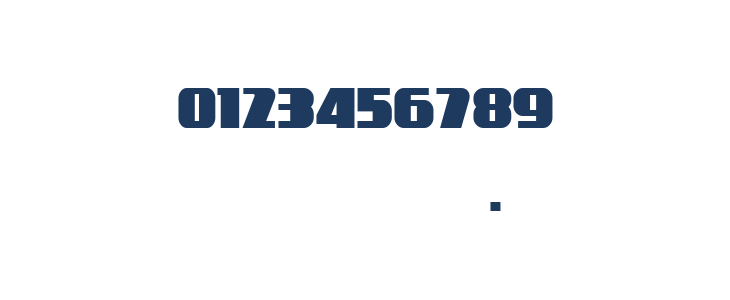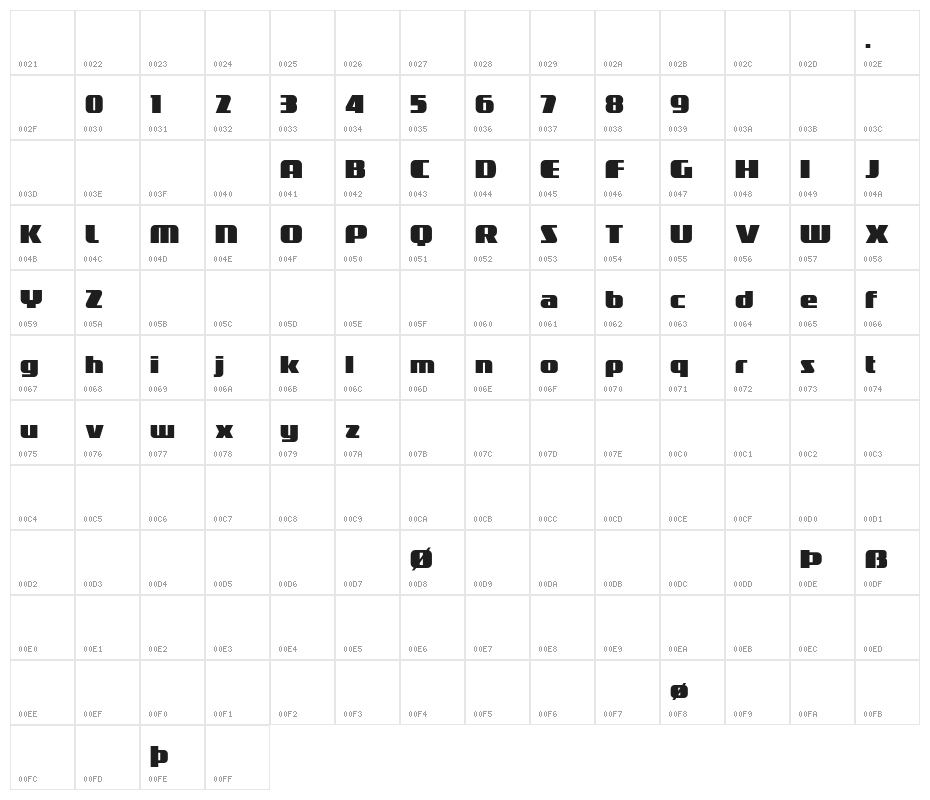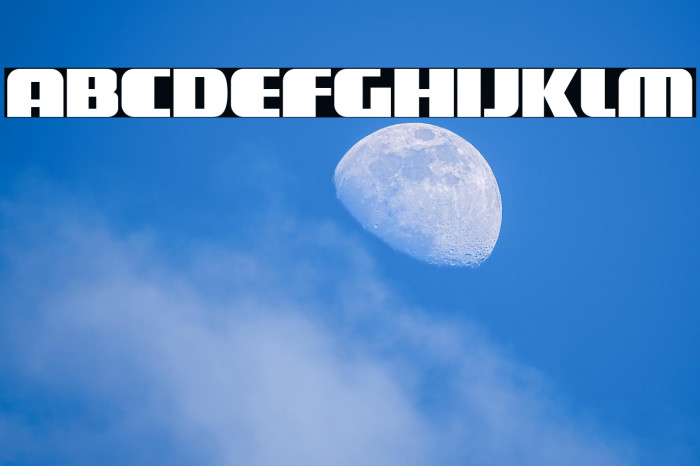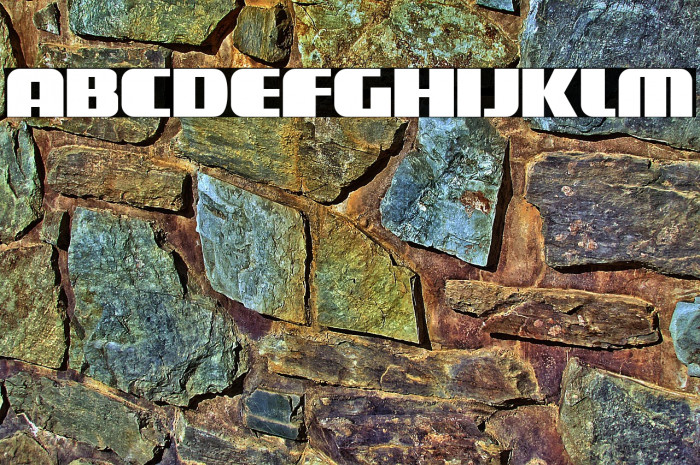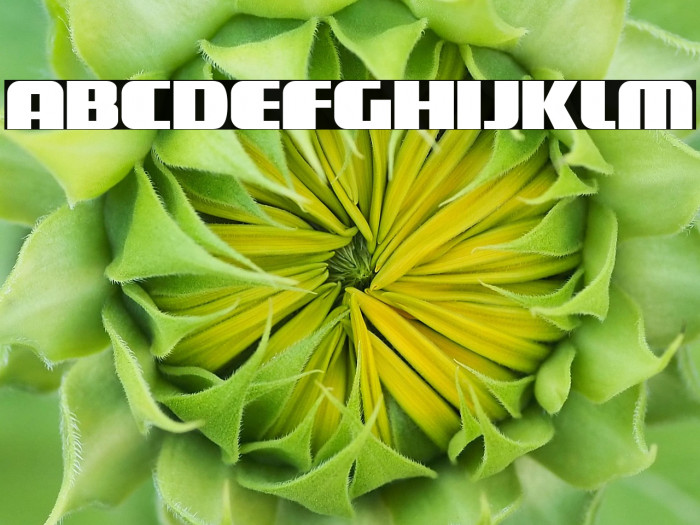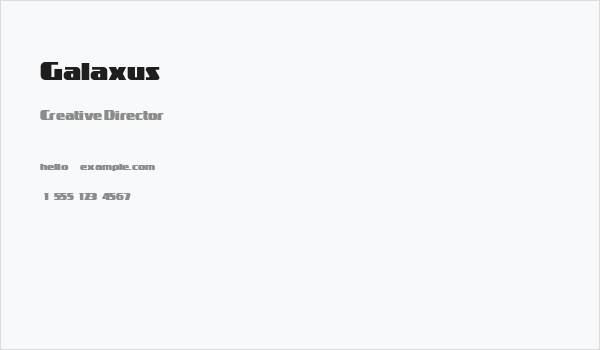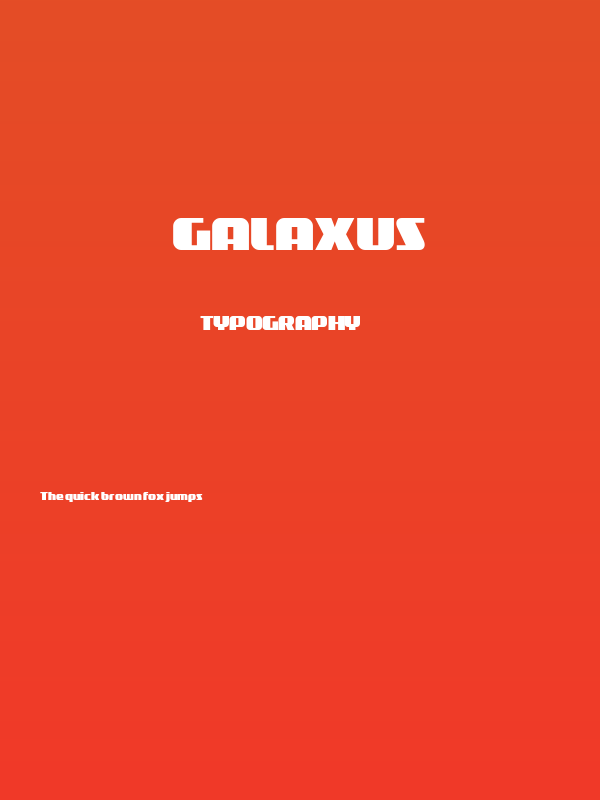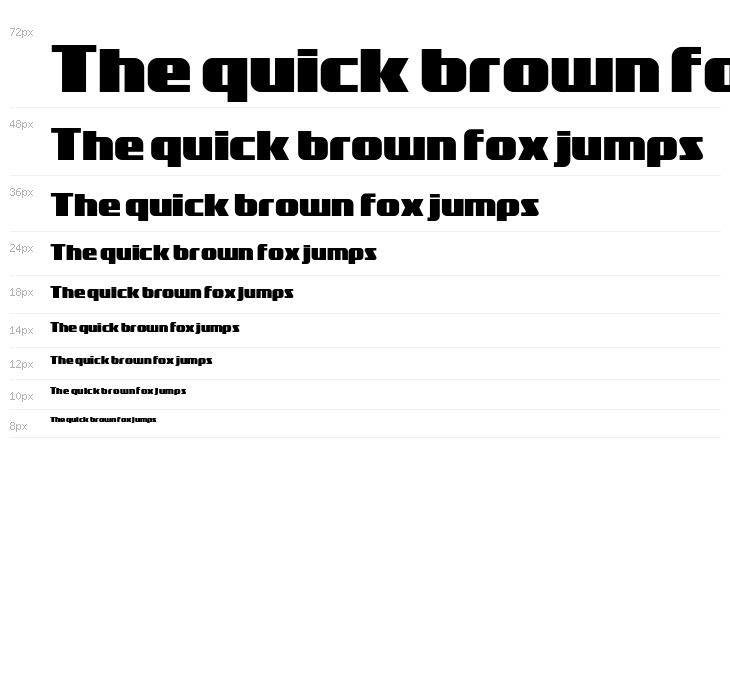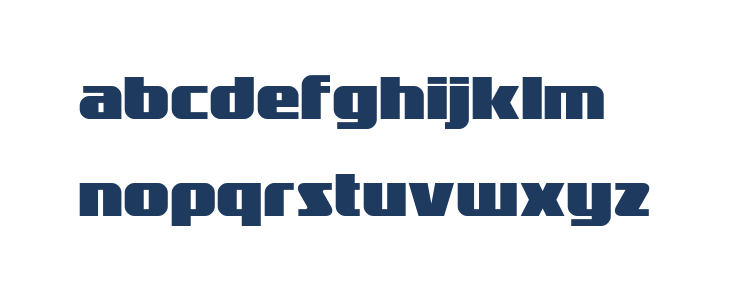
Galaxus Font
Galaxus Description
This font features a bold and striking design with a strong geometric influence. The characters are wide and have a substantial presence, making them ideal for attention-grabbing headlines. The uppercase letters are particularly robust, with a uniform thickness that conveys strength and stability. The lowercase letters maintain the same boldness, ensuring consistency across different text cases. The numerals are equally bold, providing a cohesive look throughout. The overall style is modern and assertive, suitable for projects that require a commanding visual impact.